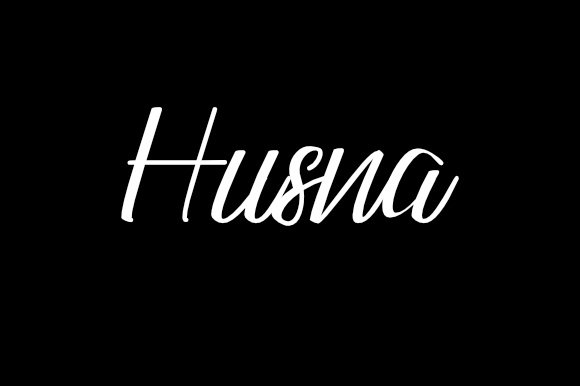
Unleash the Creativity: Introducing the Husna Font
Have you ever found yourself staring at a blank canvas, waiting for inspiration to strike? That’s exactly what happened to me the other day, when I was brainstorming ideas for a new project. I was stuck, but then I stumbled upon a beautiful script font that changed everything. It was like a breath of fresh air, and suddenly, my ideas started flowing. I knew I had to share this amazing font with the world.
Meet the Husna Font, a fun and elegant script font that’s perfect for a wide range of designs. Whether you’re working on a wedding invitation, a logo, or a social media post, Husna Font is sure to bring a touch of personality to your project. As a designer, you know how valuable it is to have a versatile font that can adapt to any style or theme. That’s exactly what the Husna Font offers, making it a must-have in your design toolkit.
Husna Font Key Features
- Font Family: Husna Font is a unique, hand-drawn script font designed to evoke a sense of elegance and sophistication.
- Character Set: Husna Font includes a wide range of characters, including uppercase and lowercase letters, numbers, and punctuation marks, making it suitable for various design applications.
- Unique Characteristics: Husna Font features intricate details, subtle flourishes, and a distinctive style that sets it apart from other script fonts, making it perfect for creating eye-catching designs and adding a touch of personality to your work.
Husna Font Review
I recently had the chance to work with the Husna font, and I must say it’s a unique and eye-catching choice for any design project. Here are some of my thoughts on what works well and what could be improved.
- Exotic flair: The Husna font has a distinct Middle Eastern flair that adds a touch of elegance and sophistication to any design.
- Legibility: Despite its ornate design, the Husna font is surprisingly legible, making it a great choice for body text.
- Customization options: The font comes with a range of weights and styles, allowing you to customize it to fit your design needs.
- Not ideal for small text: Due to its intricate design, the Husna font may not be the best choice for small text or headlines.
- Limited compatibility: Some older systems or browsers may not support the Husna font, so be sure to test it thoroughly before using it in a project.
Overall, I think the Husna font is a great choice for designers looking to add a touch of exotic flair to their projects. While it may have some limitations, its unique design and customization options make it a versatile and effective font for a range of applications.
Tips for Getting the Most Out of Husna Font
Use Husna Font for creative projects that require a unique, elegant touch. Experiment with different font sizes, colors, and combinations to achieve the desired effect.
Husna Font is suitable for various design projects, including:
– Wedding invitations
– Branding materials
– Blog posts
– Print materials (e.g., business cards, brochures)
Alternatives to Husna Font for Designers
Husna Font is a popular font known for its elegant and modern look. However, designers may be looking for alternatives that offer similar features or unique characteristics. Here are a few options to consider: